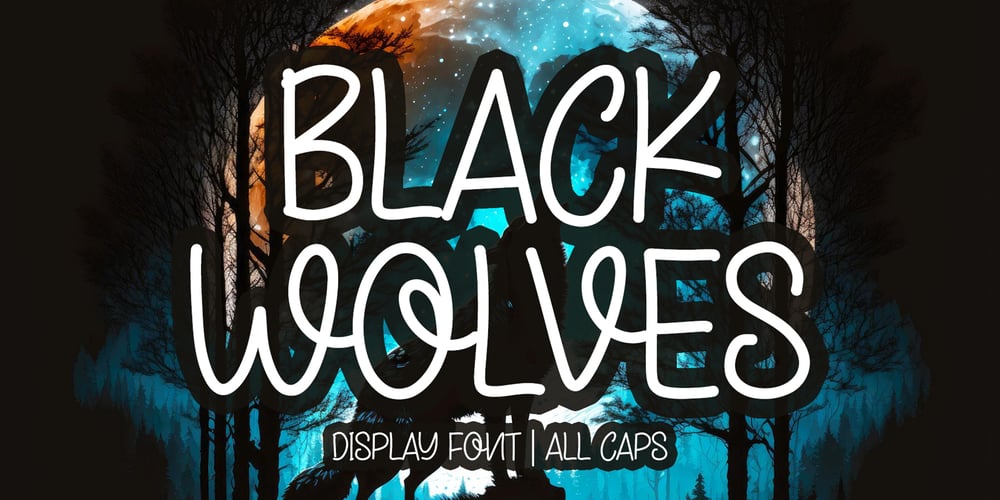
Black Wolves Font Family was designed by Ahmad Afandi and published by Letterafandi Studio. Black Wolves contains 1 styles and family package options. Black Wolves is an all caps handwritten font. No matter the topic, this font will be an incredible asset to your fonts’ library, as it has the potential to elevate any creation.